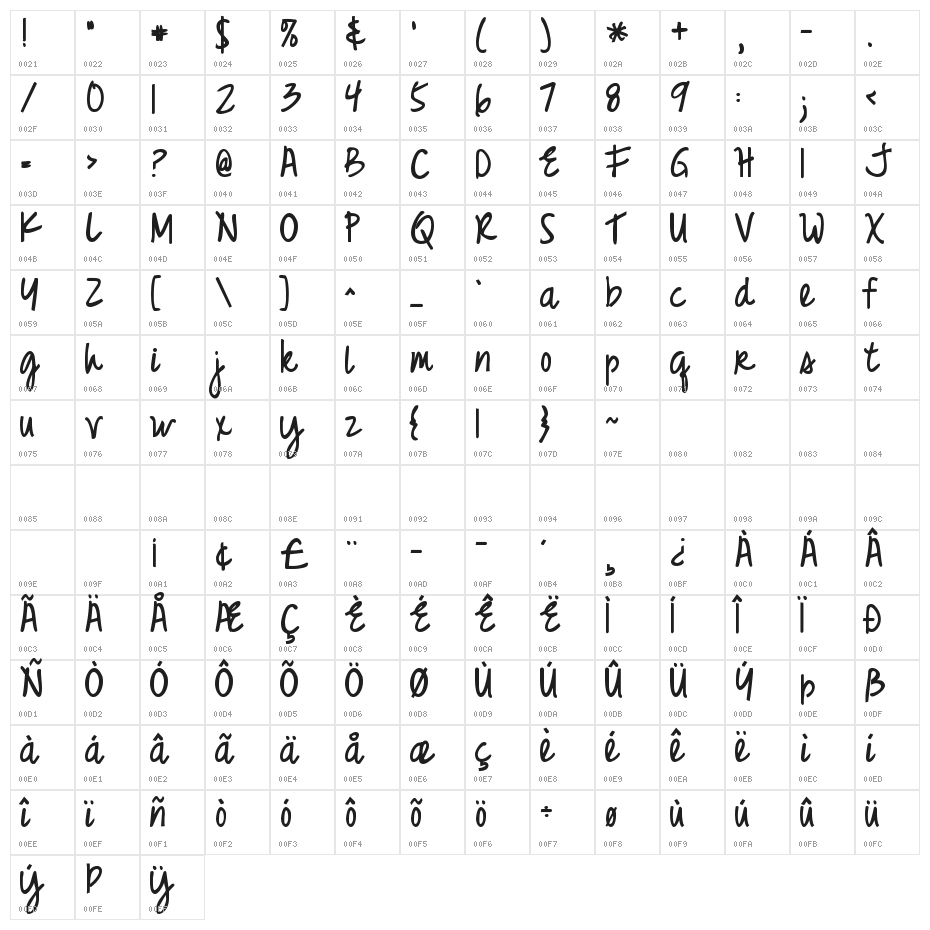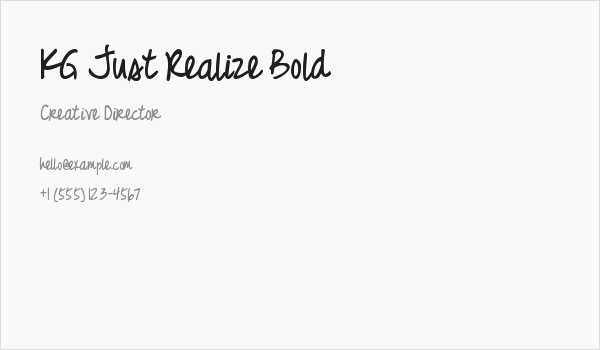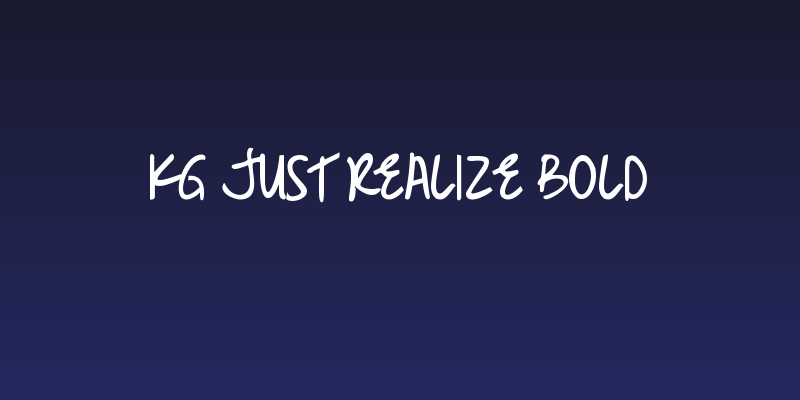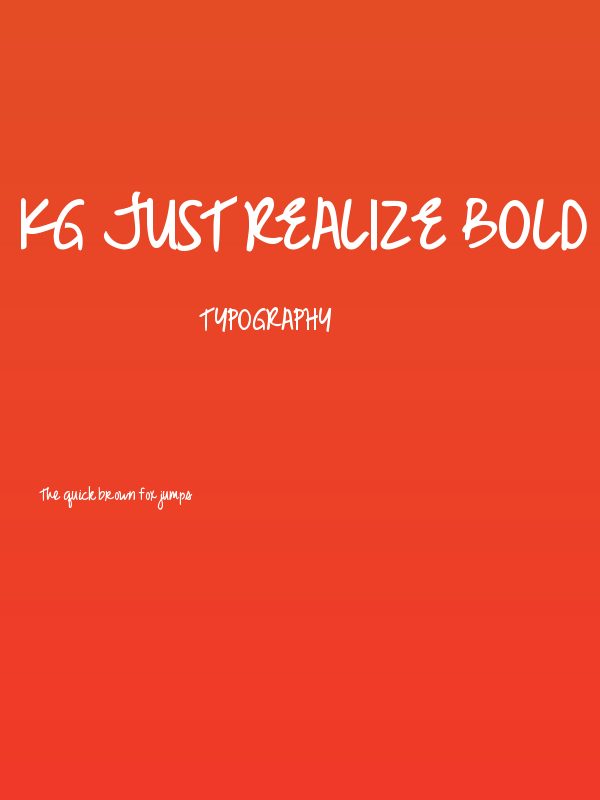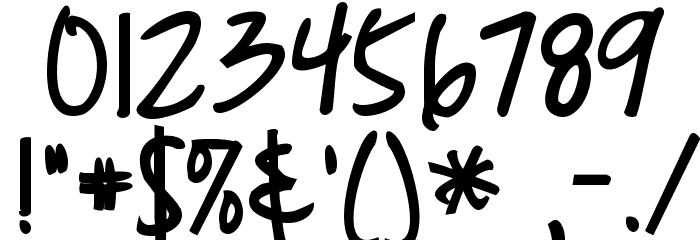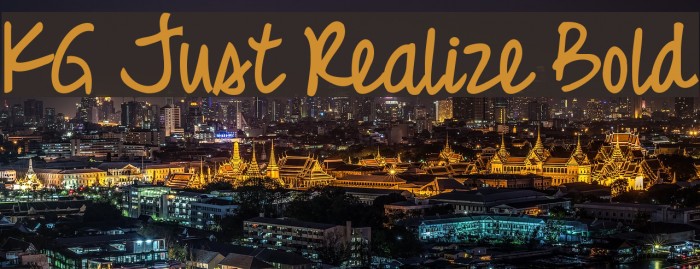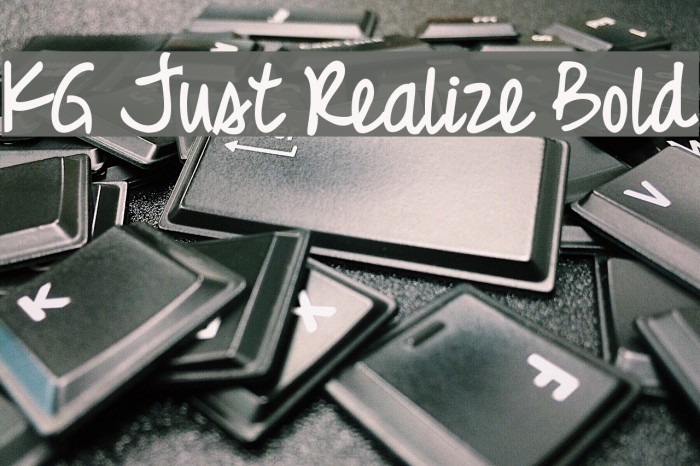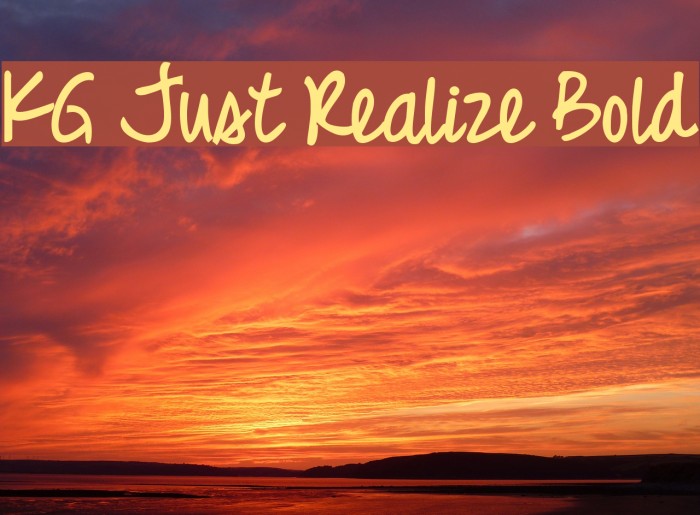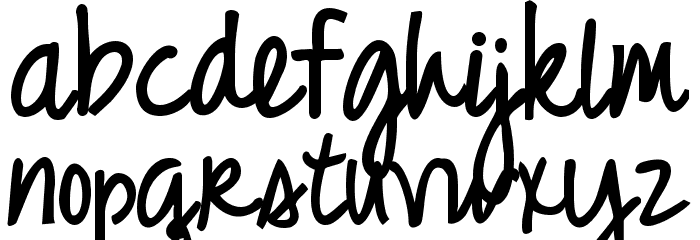
KG Just Realize Bold Font
KG Just Realize Bold Description
This font exudes a playful and casual handwritten style, characterized by its bold and dynamic strokes. The letters are slightly slanted, adding a sense of movement and energy. Each character is distinct, with a consistent thickness that enhances readability while maintaining a personal touch. The uppercase letters are bold and assertive, while the lowercase letters maintain a friendly and approachable appearance. Numbers and special characters are crafted with the same lively spirit, ensuring a cohesive look across all text. This font is perfect for projects that require a personal, informal touch, such as greeting cards, invitations, or playful branding.
| Overall Style | Casual, Playful |
| Proposed Projects | Ideal for greeting cards, invitations, playful branding, and informal communications. |